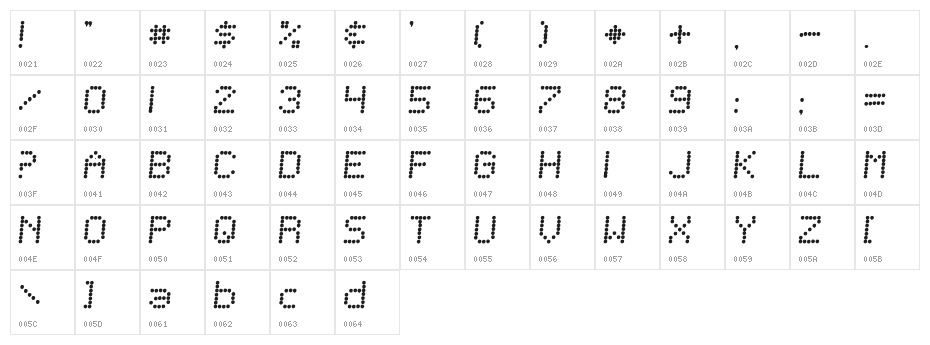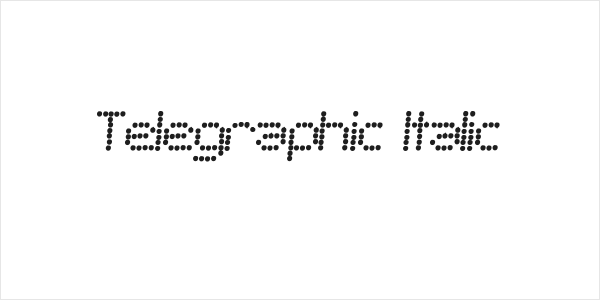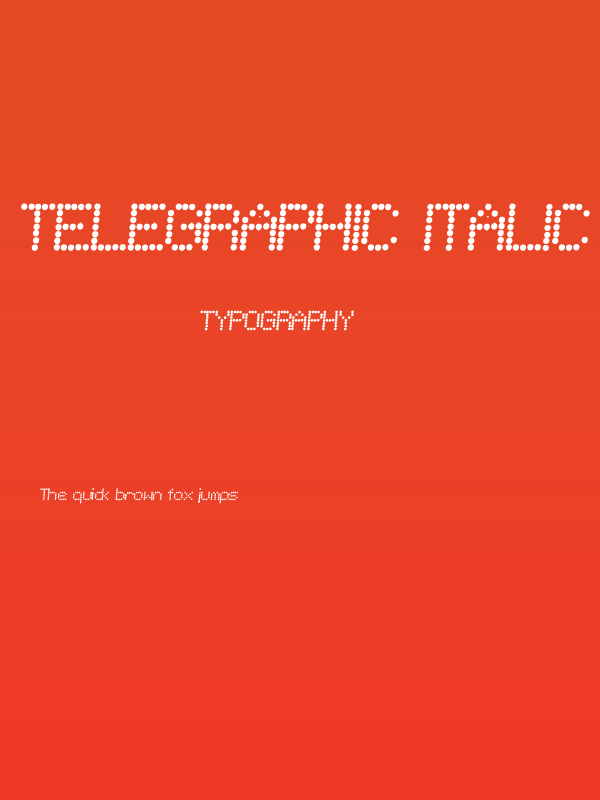
Telegraphic Italic Font
Telegraphic Italic Description
This font features a unique dotted design, where each character is composed of a series of evenly spaced dots. The style is reminiscent of digital displays or LED signs, offering a modern and tech-inspired aesthetic. The characters maintain a consistent structure, with clear differentiation between uppercase and lowercase letters. Numbers and special characters follow the same dotted pattern, ensuring uniformity across the font. The italic slant adds a dynamic feel, enhancing its contemporary look.
| Use Case | Headlines, Logos, Digital Displays |
| Proposed Projects | This font is perfect for digital displays, tech-themed posters, futuristic branding, and any project requiring a modern, digital aesthetic. |